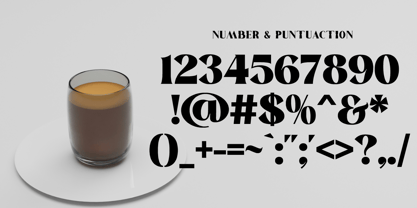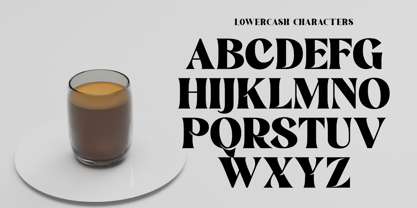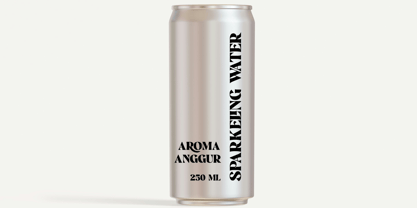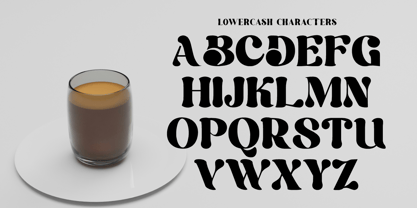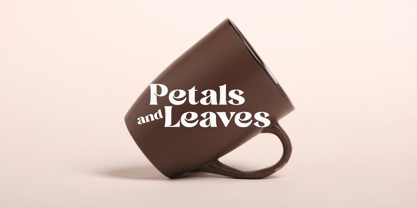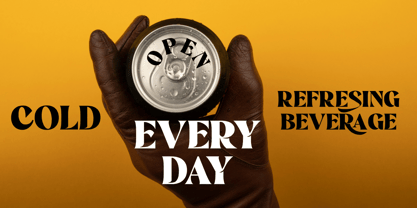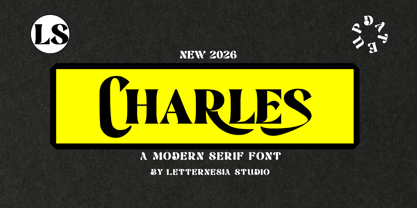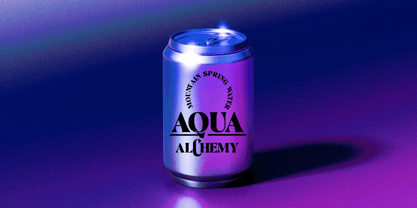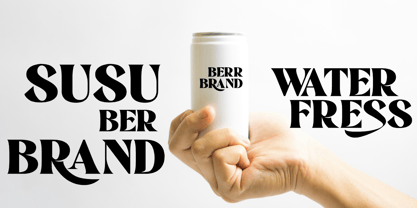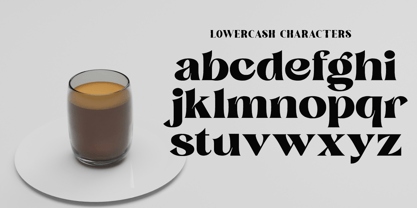
Lscharles
by Letternesia studio
The Lscharles Font Family was designed by Ta Siyo and published by Letternesia studio. Lscharles contains 2 styles and family package options. More about this family
LSCHARTES is a bold and stylish display font designed to make a strong visual statement. With its unique character shapes and modern aesthetic, this font is perfect for headlines, logos, branding, posters, packaging, and creative design projects. LSCHARTES brings a confident and eye-catching look that instantly grabs attention. Its distinctive letterforms give a premium and contemporary feel, making it ideal for designers who want to create standout typography. Whether used for digital or print designs, LSCHARTES adds personality, strength, and visual impact to any composition.